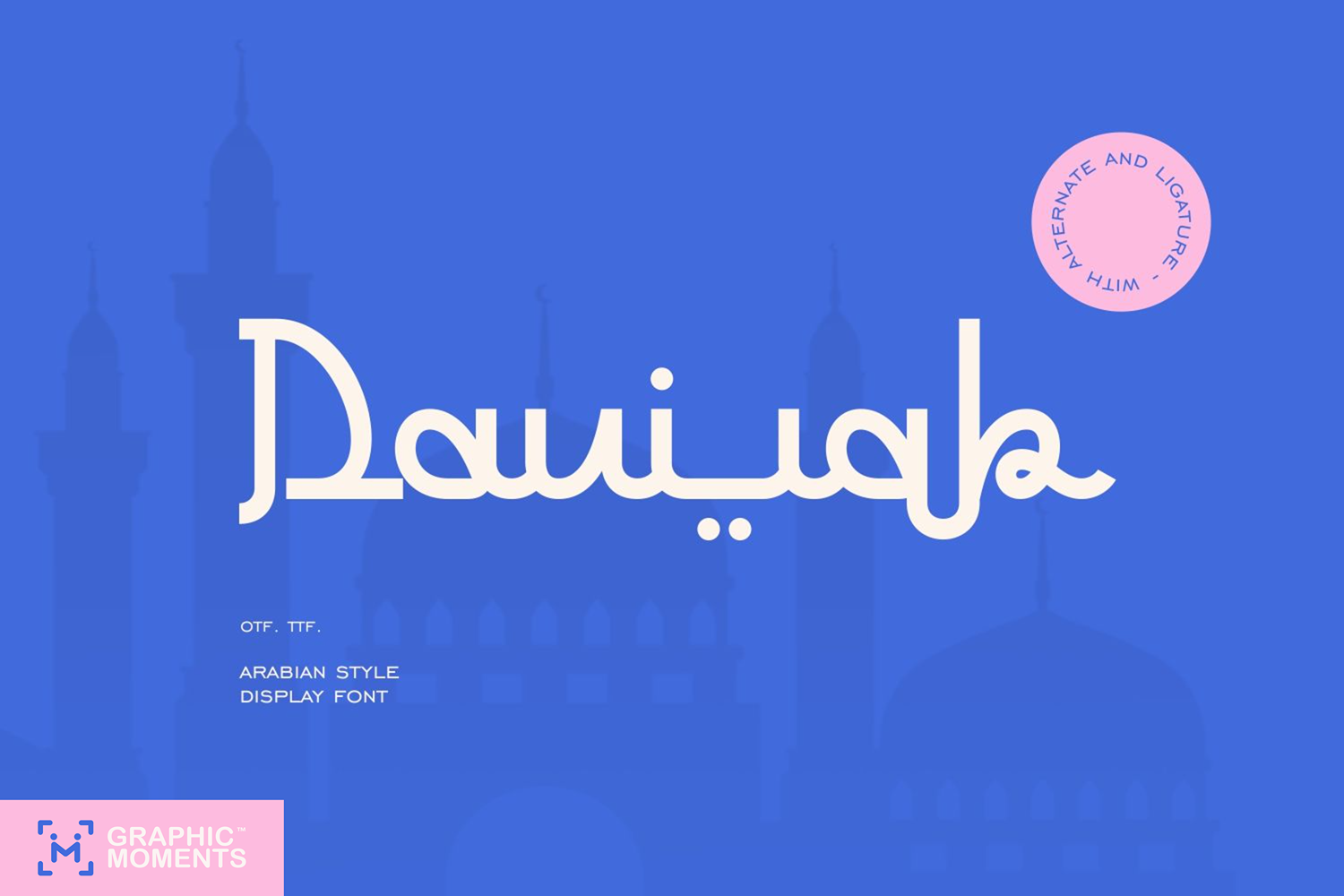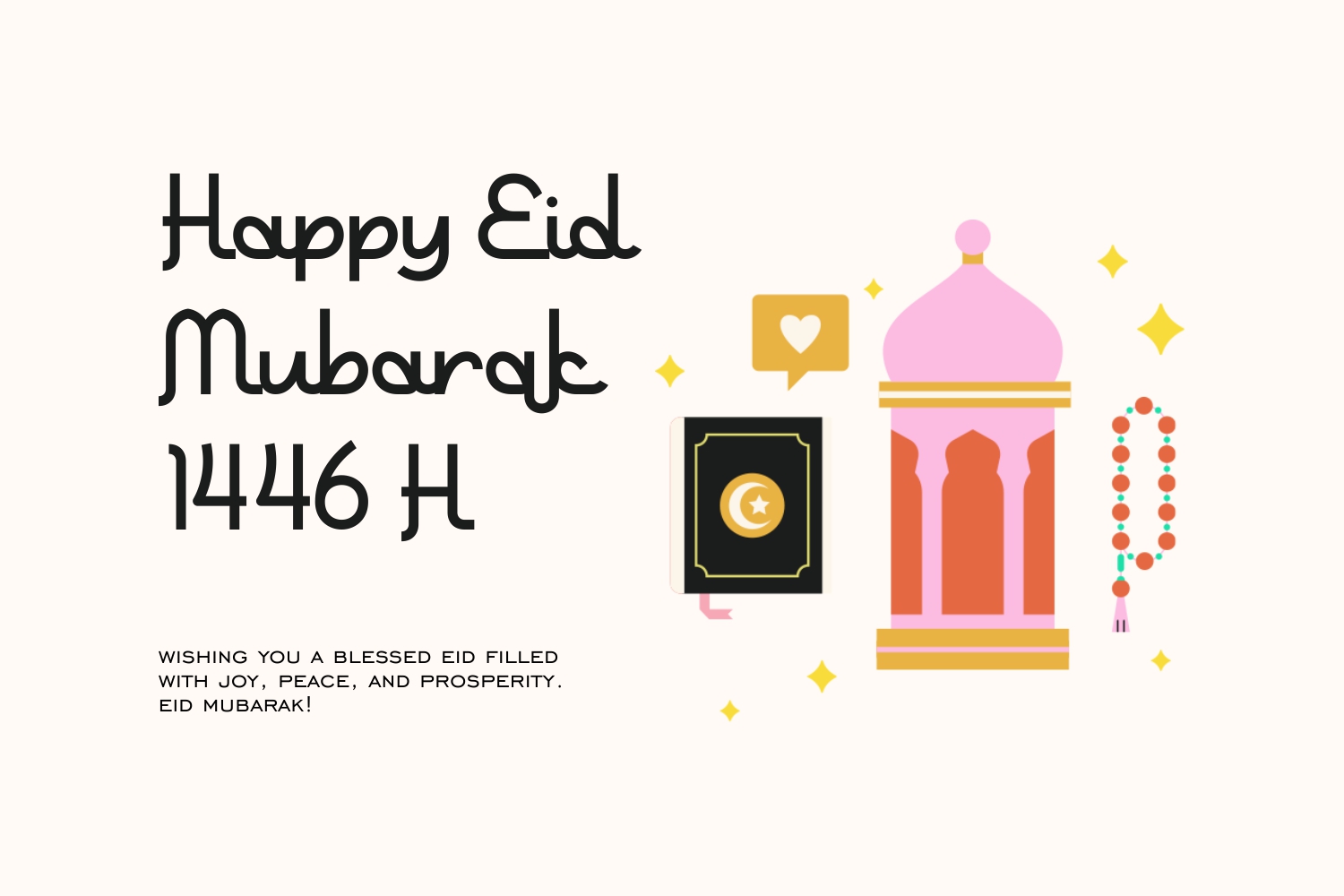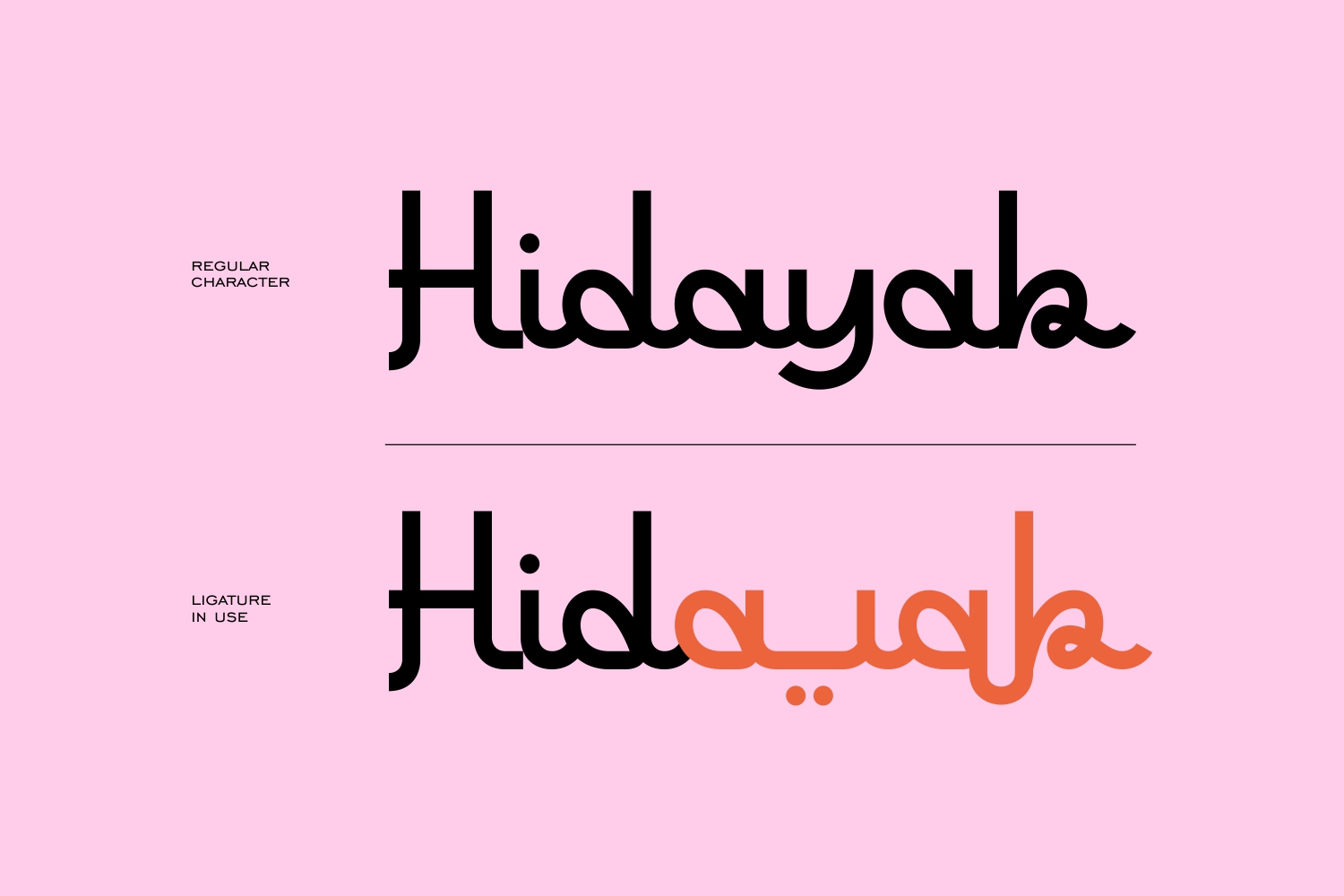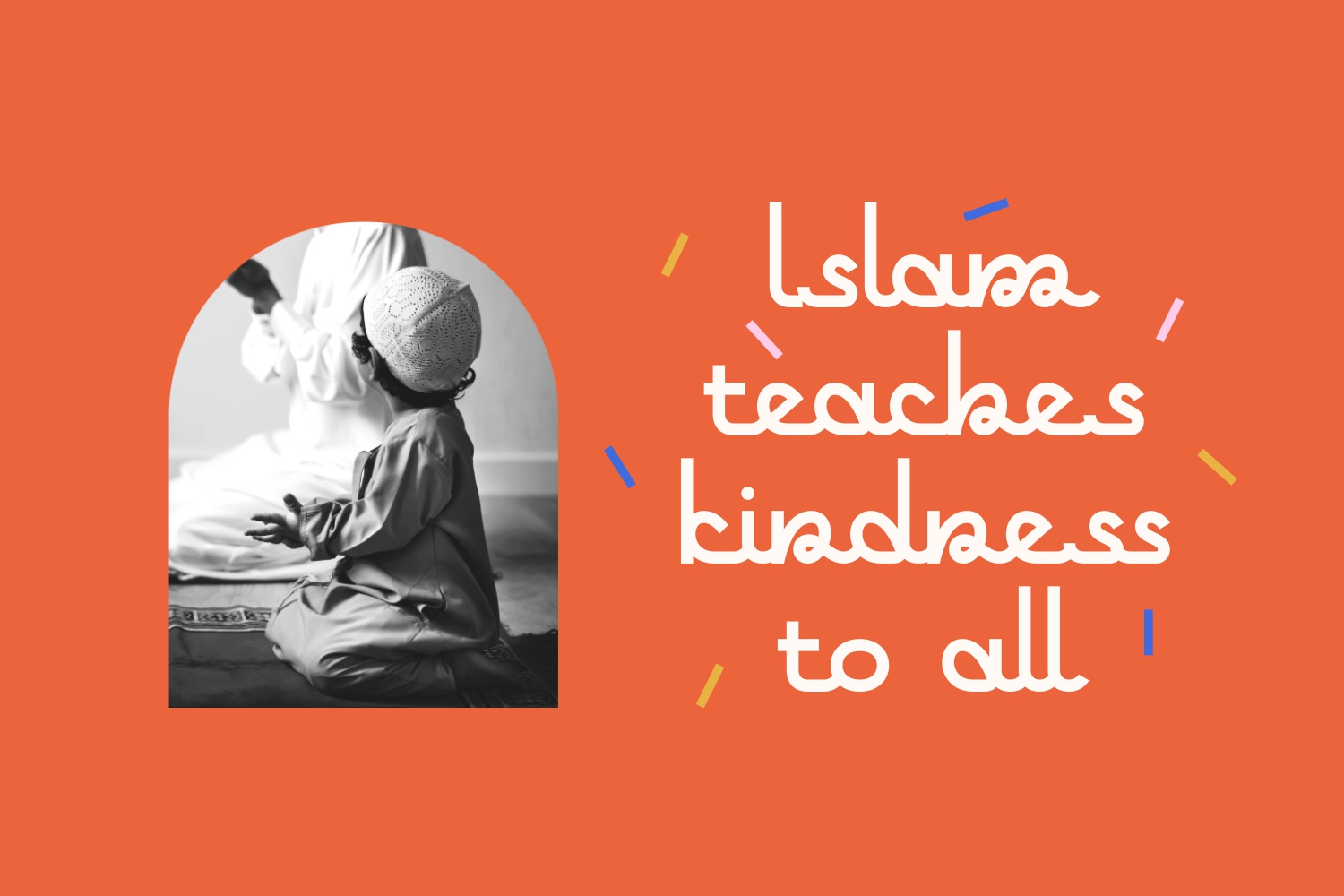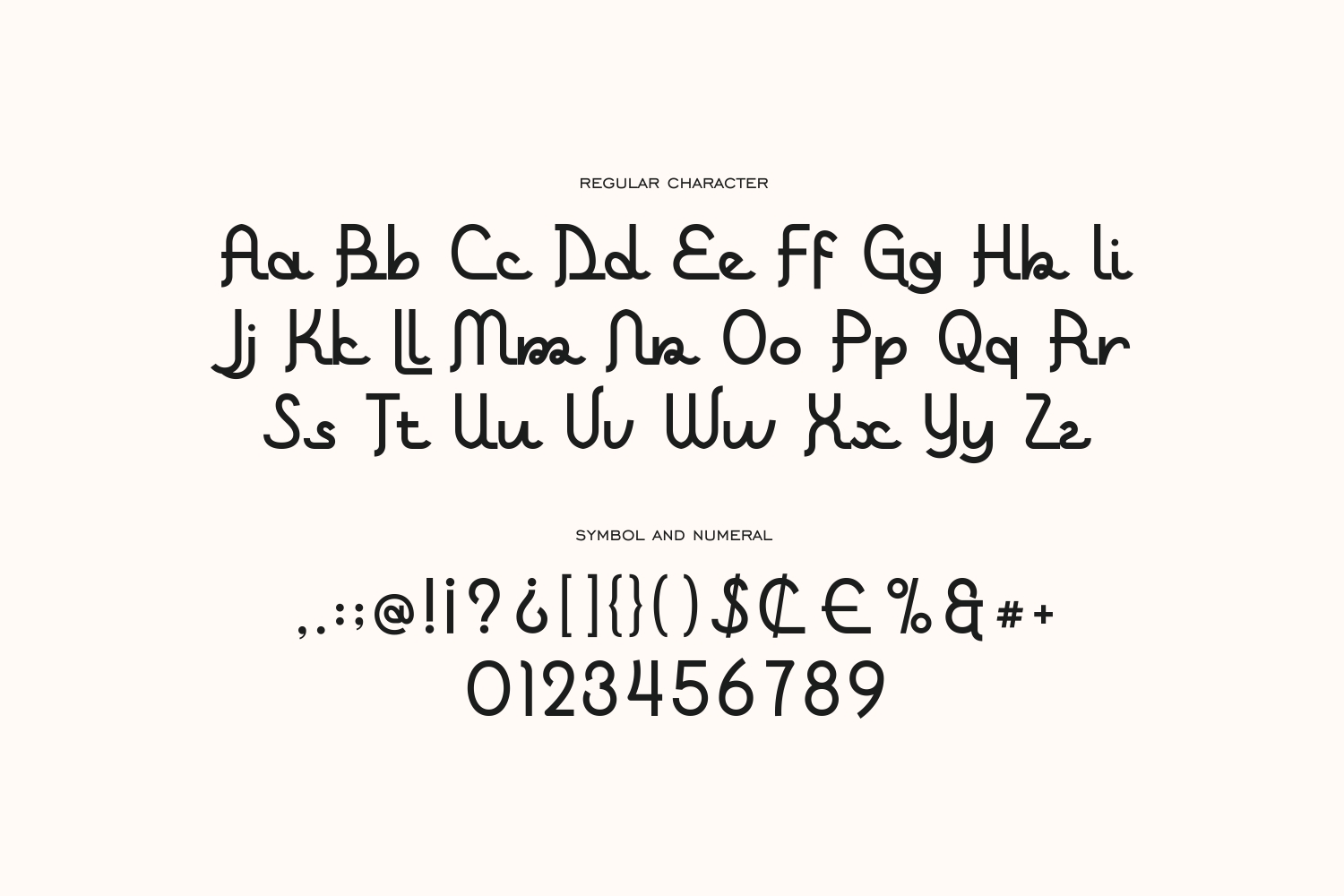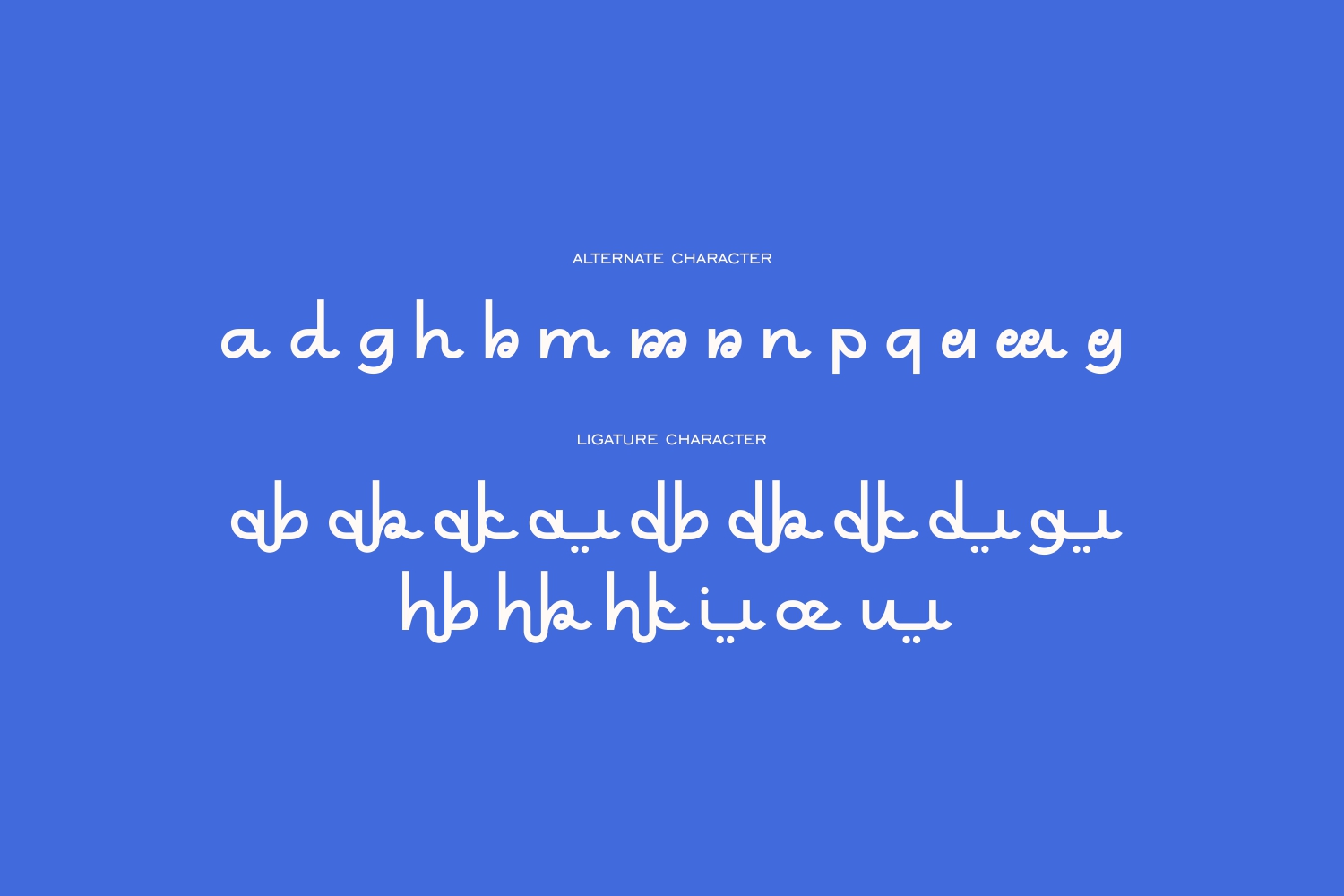
Dauiyah is a modern Arabian style display font that beautifully merges cultural elegance with a fresh contemporary twist. Its smooth curves and distinctive ligatures create a harmonious flow, making it ideal for religious celebrations, festive greetings, and cultural branding. Designed with versatility in mind, Dauiyah includes alternate characters and ligatures that enhance creativity, allowing designers to craft unique and personalized typography for any project.
This font is perfect for Eid cards, Ramadan promotions, Islamic book covers, posters, and social media templates. Its bold yet refined appearance ensures readability while maintaining a decorative charm inspired by Middle Eastern calligraphy. With its balance of tradition and modernity, Dauiyah is an excellent choice for projects that seek to express cultural identity with style and sophistication.
Dauiyah